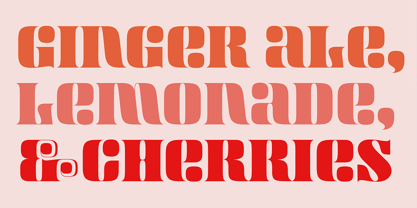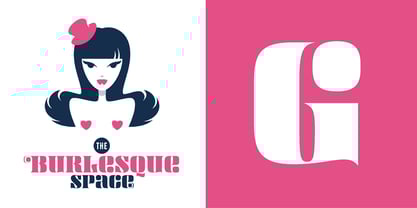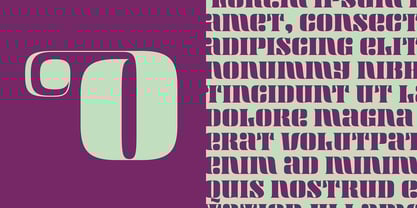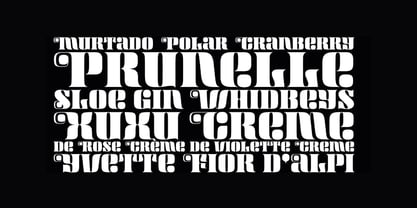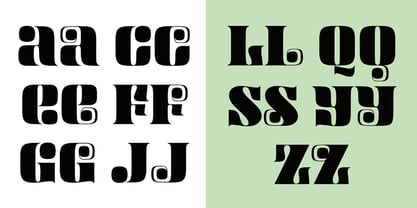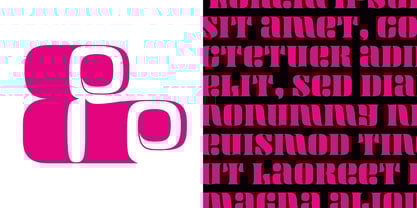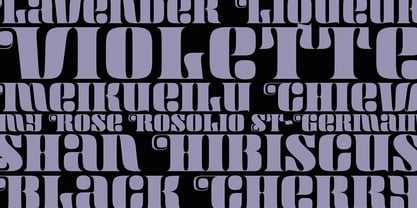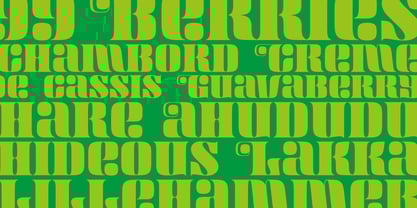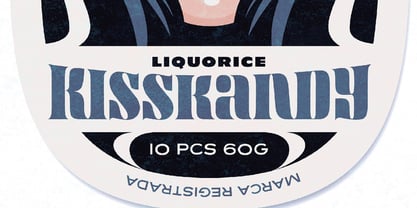
Maraschino
by Device
The Maraschino Font Family was designed by Rian Hughes and published by Device. Maraschino contains 1 styles.
DF Maraschino Black - A sleek, sophisticated swash capital font with elegant thick and thin weight distribution. Bold yet poised, direct yet refined. The swash capitals are intended for use at the beginnings of words only - best not to set this in ALL CAPS. Use at larger sizes. Also includes stylistic decorative alternates for certain characters that can be toggled on and off in the Opentype panel.
Designers: Rian Hughes